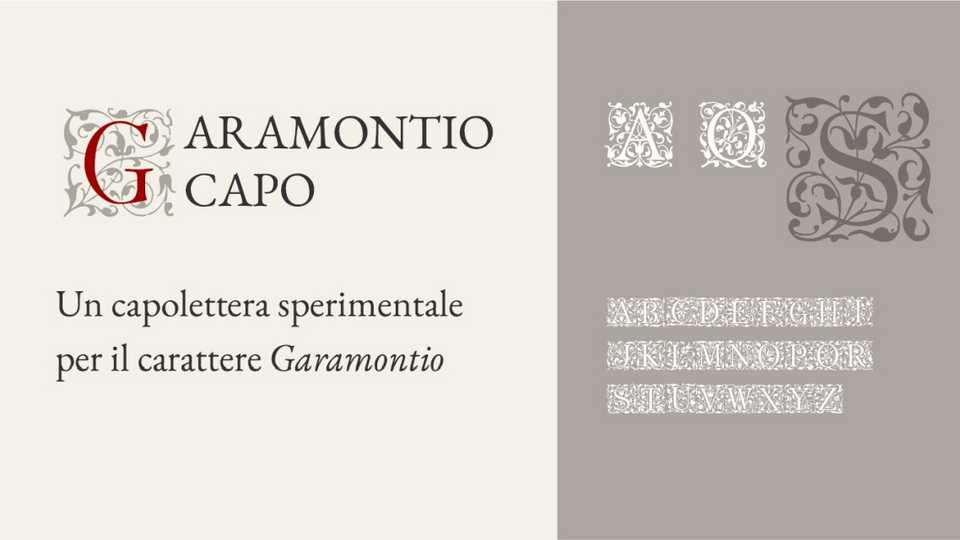
Download Garamontio Capo font, an ornate decorative typeface that blends classical elegance with Renaissance charm. Featuring elaborate floral engravings behind refined Garamond-style capitals, each letter is framed like a miniature work of art.